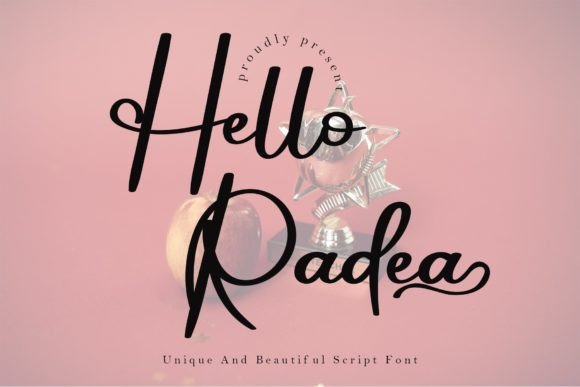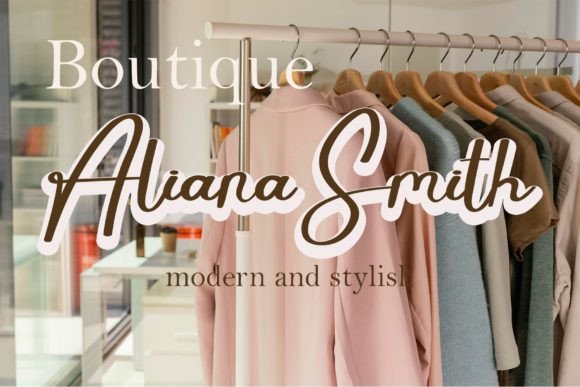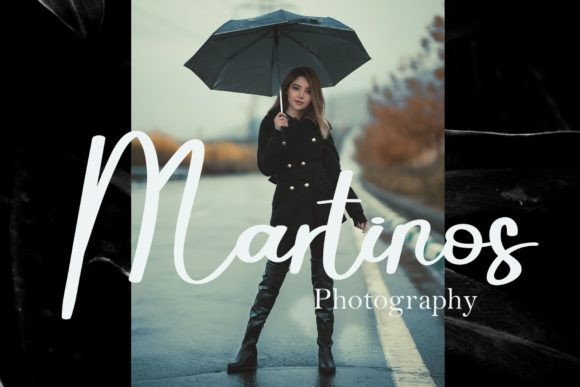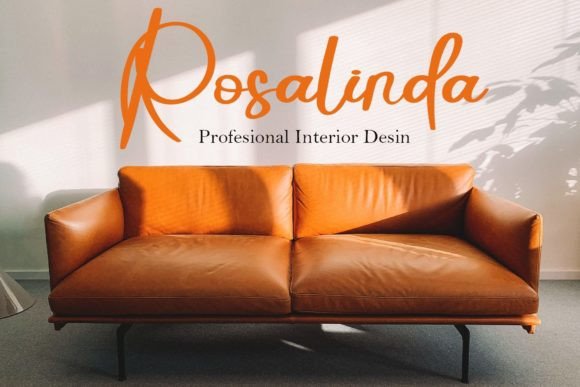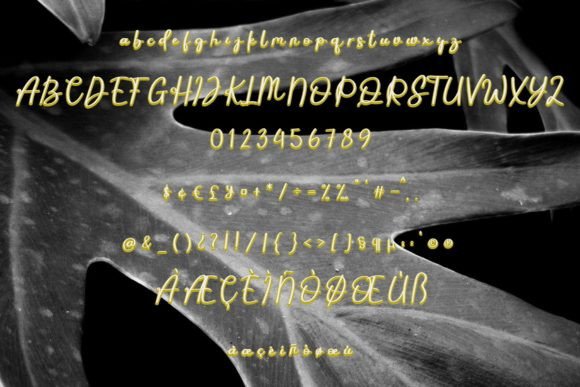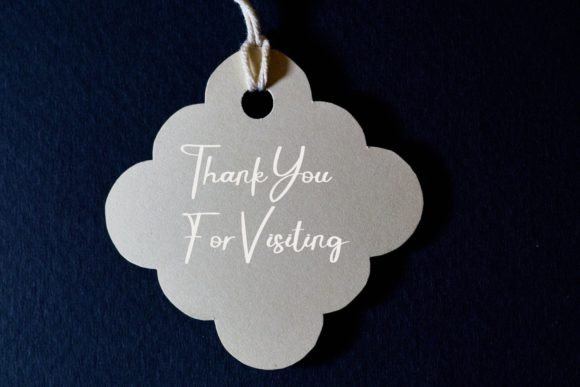
Hello Radea Font
**Embrace Elegance with Hello Radea: A Sweet and Beautiful Handwritten Font**
Hello Radea is not just a font; it’s a sweet melody in the world of typography, a beautiful handwritten script that brings a touch of luxury to every stroke. As you immerse yourself in the dance of characters along the baseline, Hello Radea becomes more than letters; it becomes the key to unlocking a world of sophistication in any design project you envision.
**Dancing Along the Baseline:**
What sets Hello Radea apart is the graceful dance of its characters along the baseline. This unique feature imparts a sense of movement and rhythm to the font, creating a visual symphony that captures the eye and adds a dynamic flair to your designs. Each character becomes a dancer in this elegant choreography, contributing to an overall aesthetic that transcends the ordinary.
**Sweet and Beautiful Aesthetics:**
Hello Radea is a testament to sweetness and beauty in the realm of handwritten fonts. The strokes are delicately crafted, exuding a warmth that resonates with every curve. The handwritten nature of the font adds a personal touch, as if each word is penned with care and affection. This sweetness, coupled with its inherent beauty, makes Hello Radea a perfect choice for projects that demand a blend of charm and sophistication.
**Luxury Spark in Every Design:**
The luxury spark that Hello Radea brings to your design projects is undeniable. Whether you’re working on invitations, branding materials, or any creative endeavor, this font elevates the visual experience. It’s more than just a tool for communication; it’s a statement of refinement and opulence. Your designs, infused with the essence of Hello Radea, become a testament to the luxurious aesthetics you wish to convey.
**Versatility in Expression:**
Despite its inherent elegance, Hello Radea is a versatile font that adapts to a range of design needs. It’s not confined to a specific theme or style, making it suitable for a variety of projects. From wedding invitations that demand a touch of romance to corporate materials seeking a sophisticated edge, Hello Radea seamlessly integrates, ensuring that your message is not just communicated but celebrated in style.
**Conclusion: Unlock Elegance with Hello Radea**
In conclusion, Hello Radea is an invitation to unlock elegance and luxury in your design journey. Its sweet and beautiful handwritten script, coupled with the dynamic dance along the baseline, creates a visual masterpiece that goes beyond mere letters. Whether you’re aiming for sophistication, charm, or a blend of both, Hello Radea is the font that adds the perfect finishing touch, turning your creative vision into a captivating reality. Embrace the beauty, feel the sweetness, and let Hello Radea be the spark that transforms your design projects into works of art.